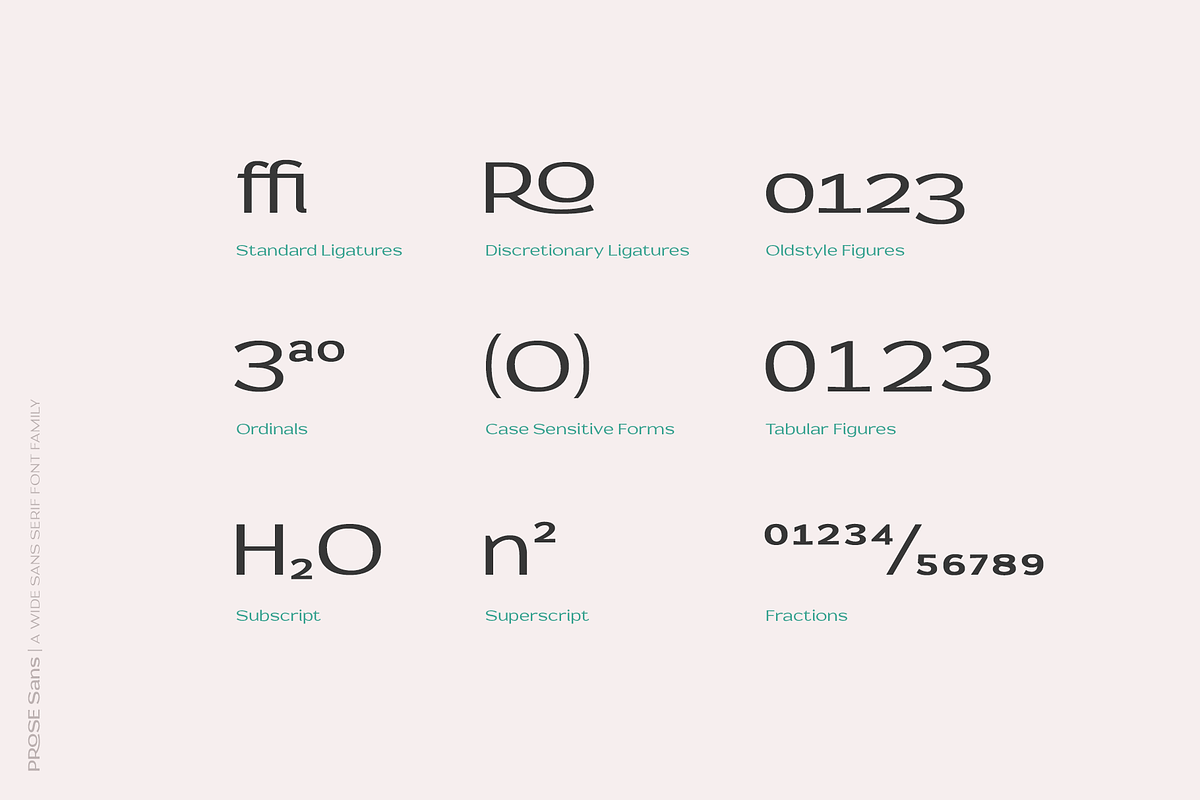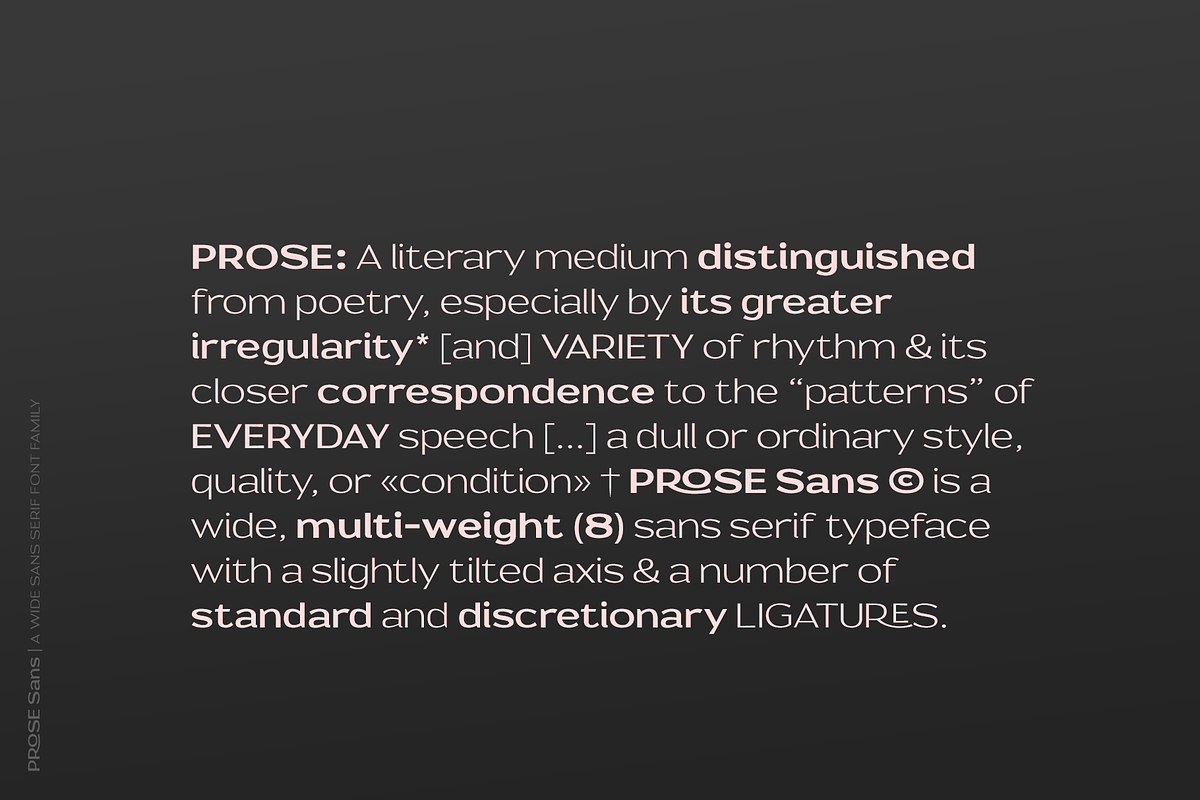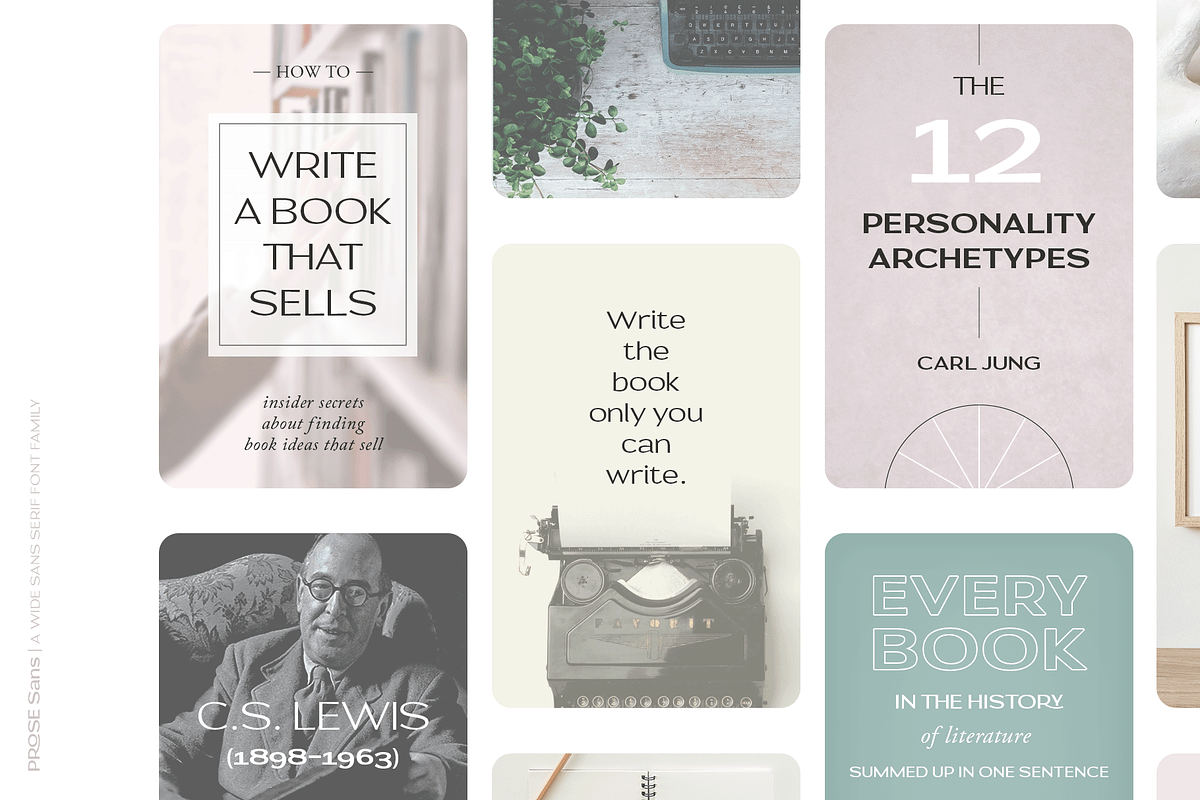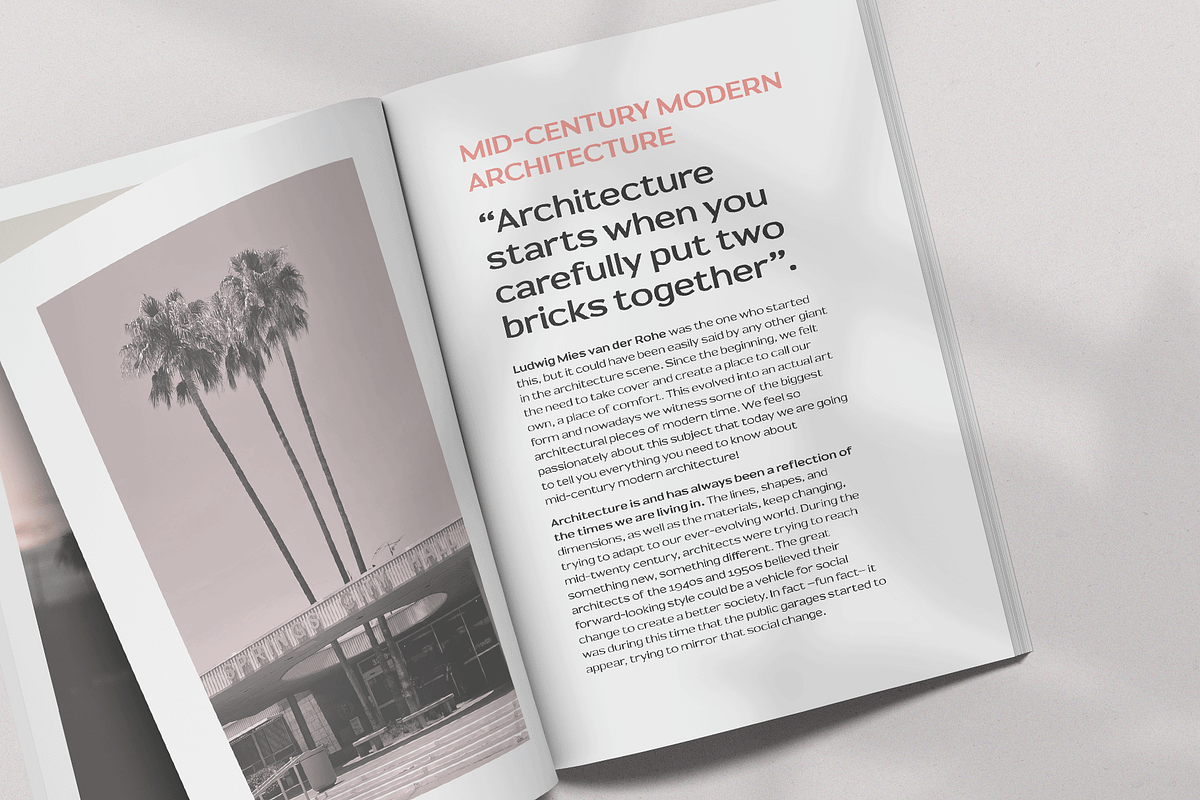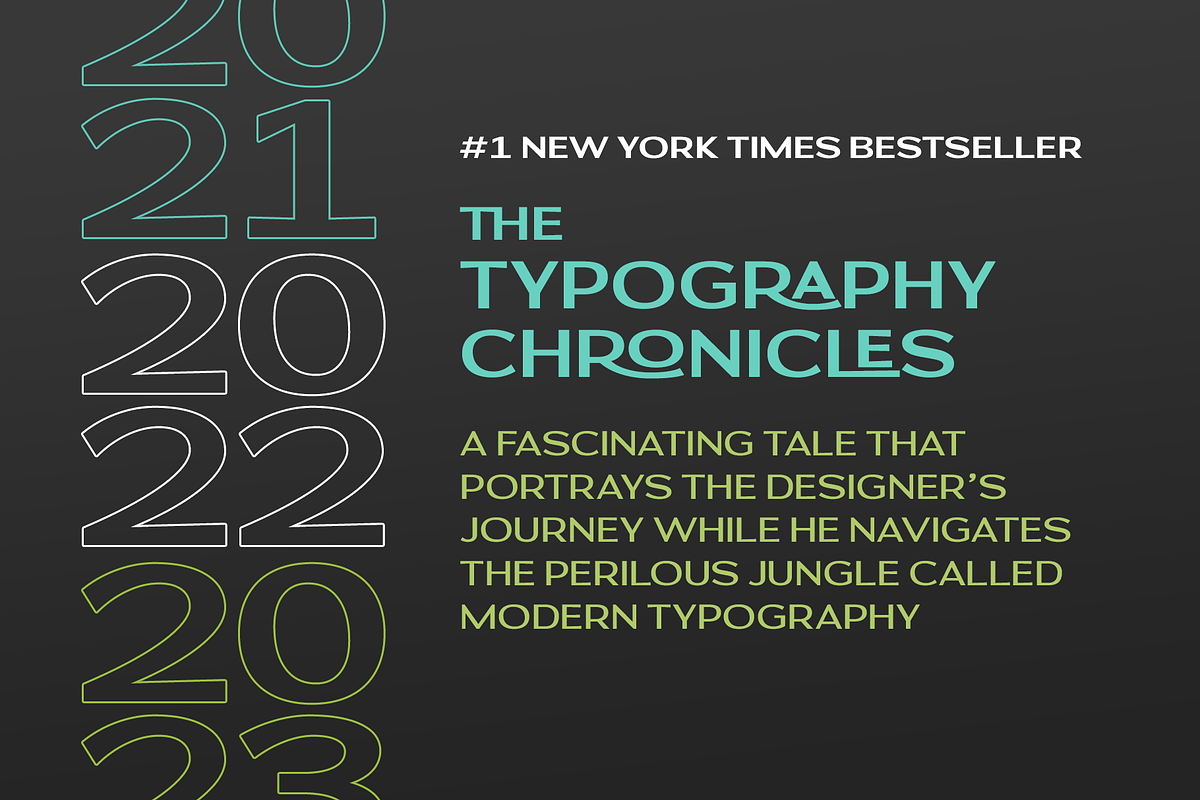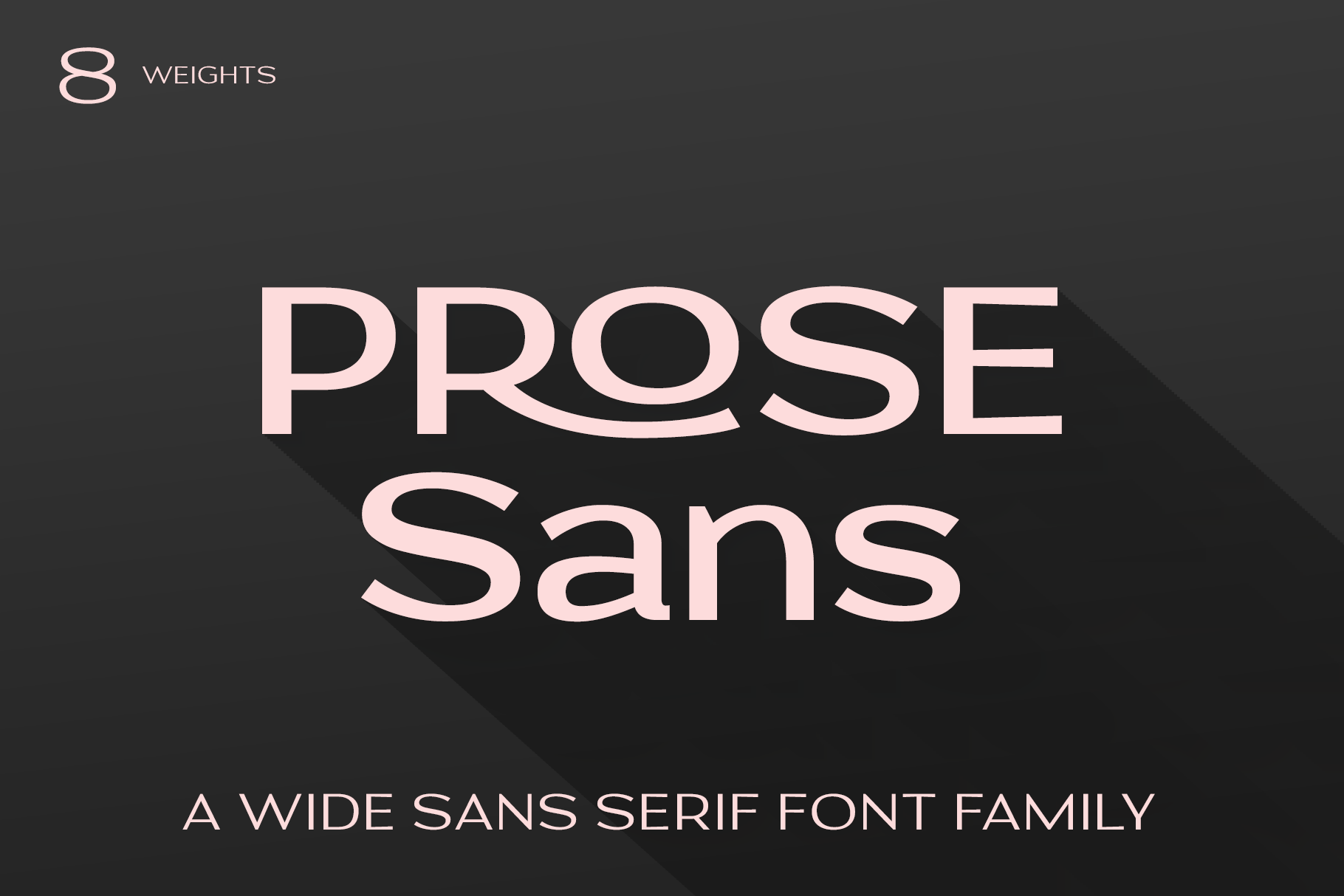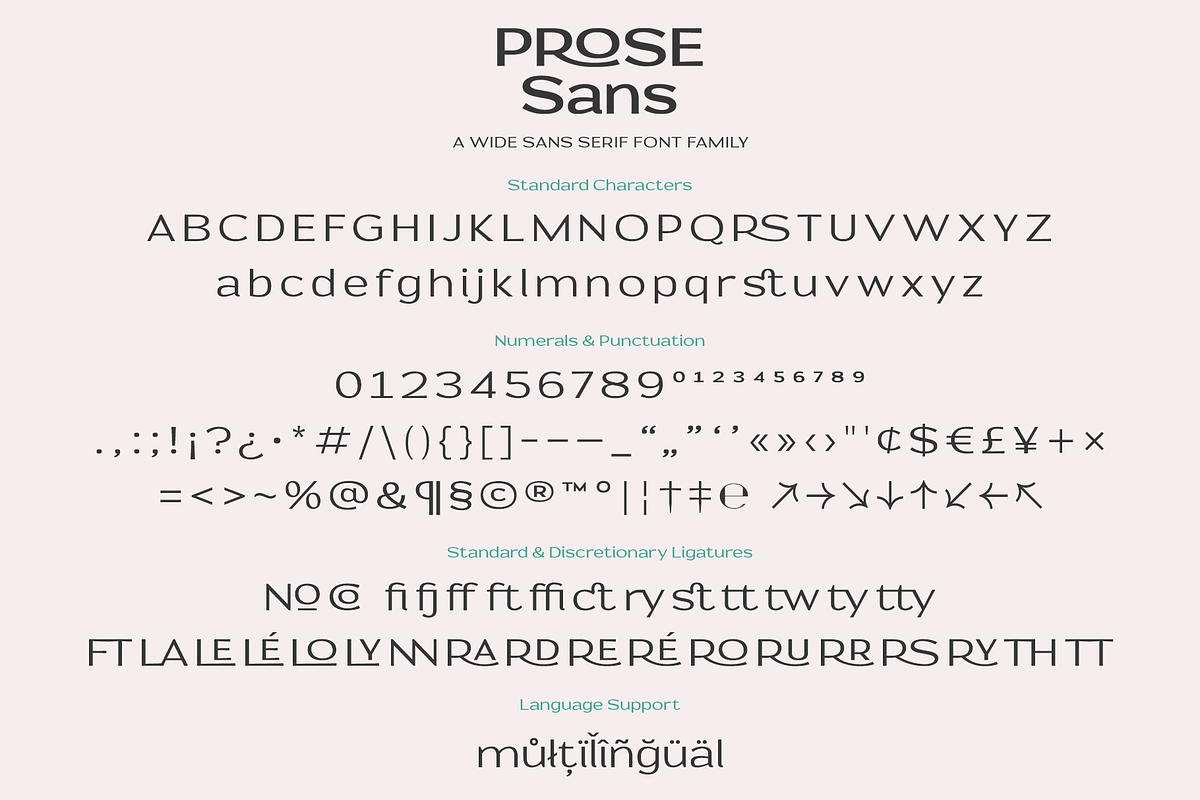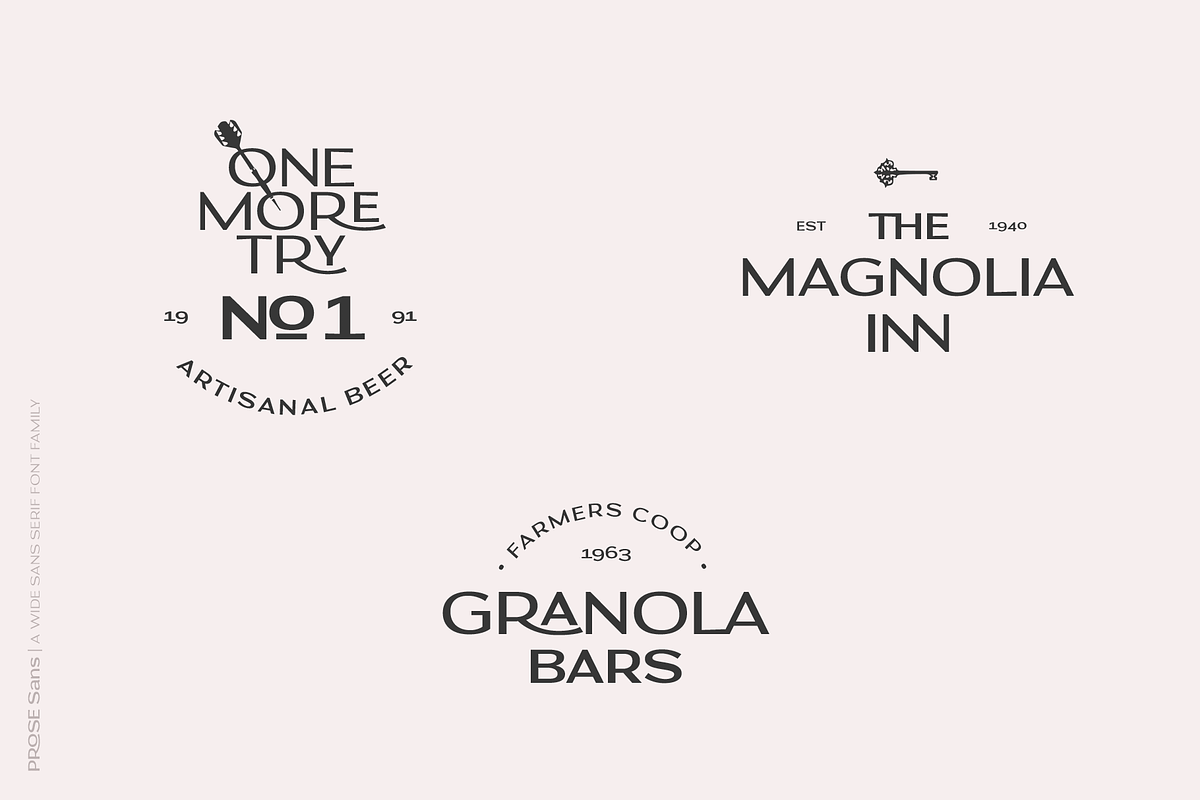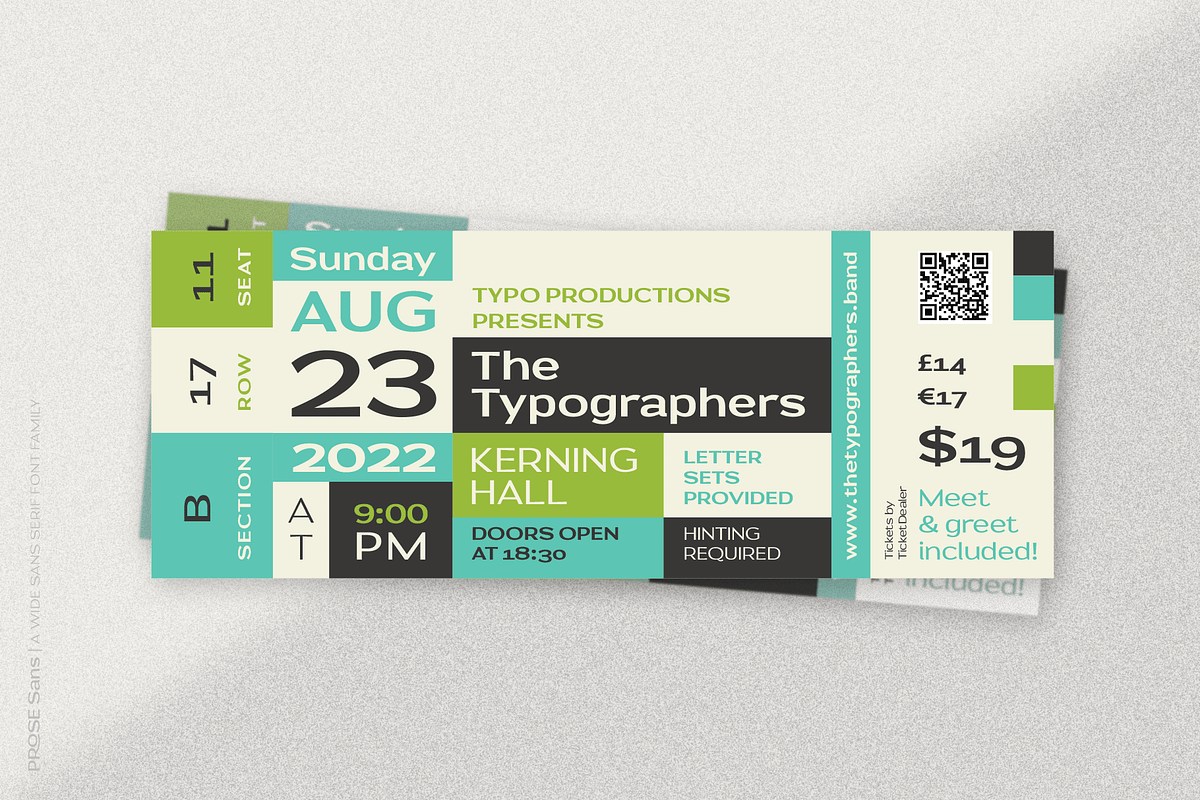
Prose Sans | Sans Serif Font Family
Prose Sans | A Wide Sans Serif Font Family
Prose Sans is a wide sans serif font family that comes in 8 weights. With its slightly tilted axis and relatively high contrast strokes, it is both elegant and strong. The standard and discretionary ligatures help achieve a more tailored look, excellent for branding, logo design, poster design etc.
- Uppercase & Lowercase Letters
- Standard Figures, Tabular Figures & Oldstyle Figures
- Fractions & Punctuation
- Superscript & Subscript
- Standard & Discretionary Ligatures
- Case Sensitive Forms